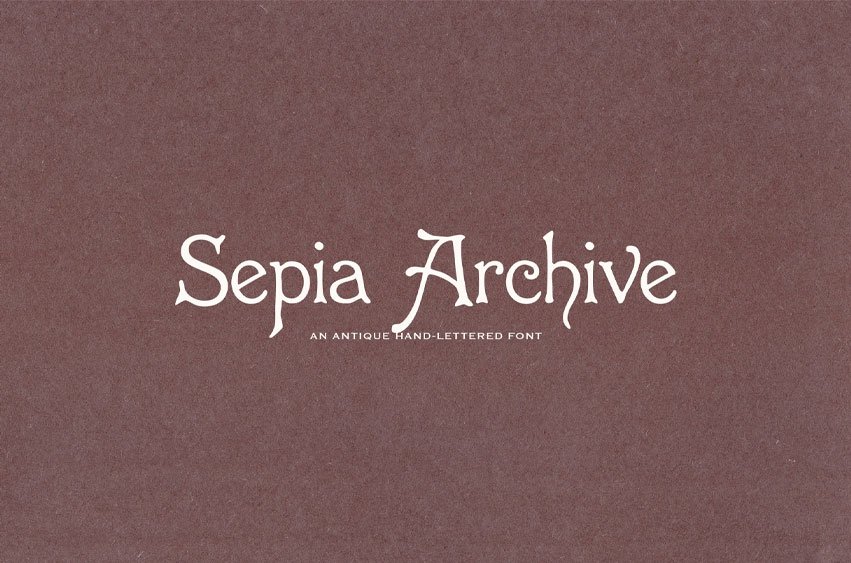
Sepia Archive Font is an antique hand-lettered display font inspired by old paper archives, Victorian stationery, sepia ink, and worn printed labels.
Its uneven shapes, delicate curves, and handmade character give designs a quiet historical feeling — perfect for vintage branding, editorial layouts, packaging, logos, labels, wedding stationery, book covers, and nostalgic paper goods.
This typeface is not meant to look perfectly modern or polished. It was created to feel aged, human, irregular, and full of archive charm.